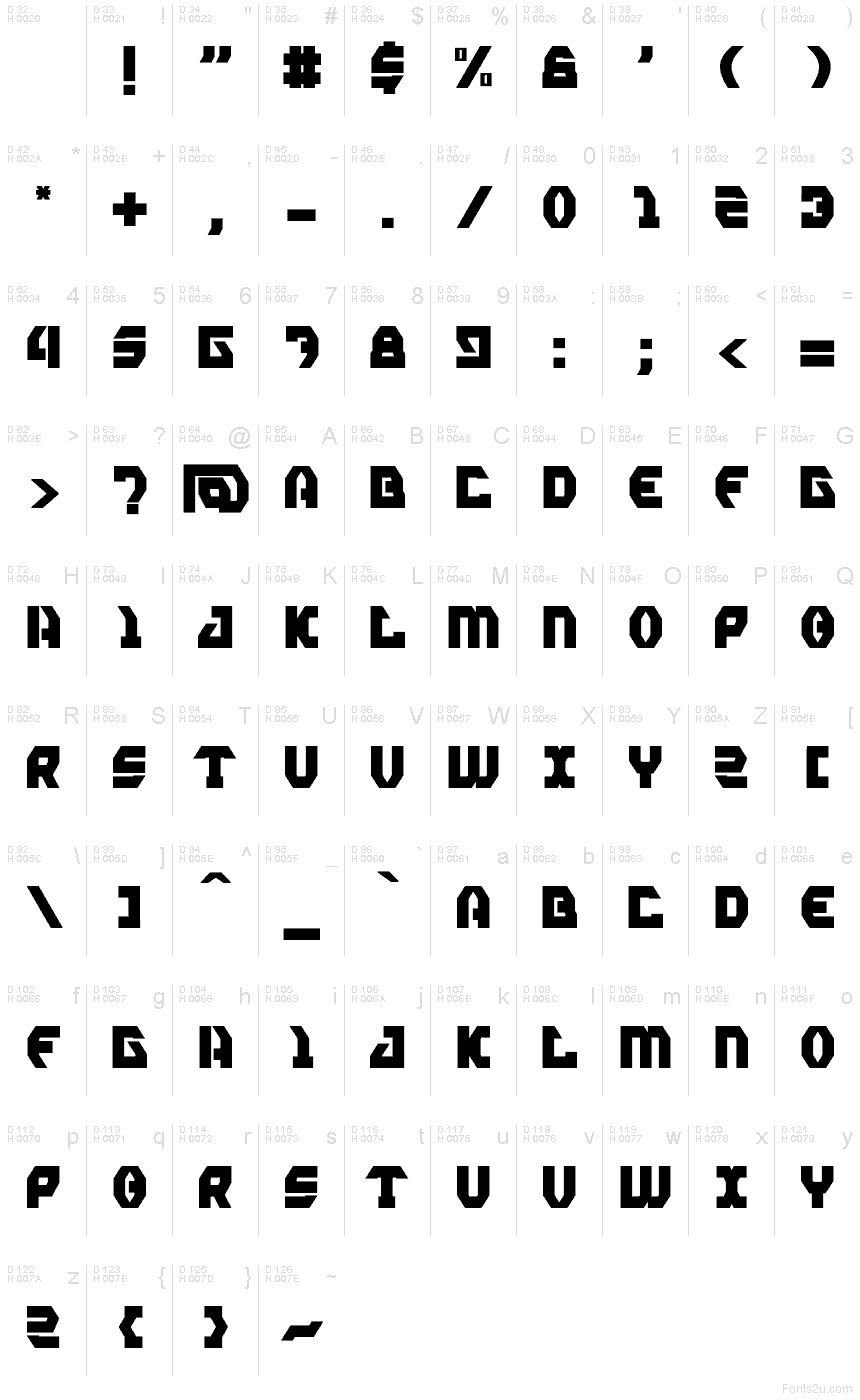
Vinbex
Vinbex font by Dhabee Studio is a free futuristic display typeface with a bold, engineered attitude. Its tall, blocky letters are sliced with sharp angles and geometric cutouts, creating a rhythm that feels like sci-fi architecture or a glowing HUD. The tight spacing and chunky strokes give every word a dense, mechanical weight, as if it’s been stamped into metal or carved into a spaceship hull.
Using Vinbex, your titles instantly signal tech, gaming, and forward-looking energy. This free font works beautifully for esports logos, sci-fi movie posters, game covers, tech brand wordmarks, streaming overlays, and bold event flyers. Set it large so the angular details stay crisp, and pair Vinbex with a clean geometric sans for smaller supporting text to keep everything readable and cohesive.